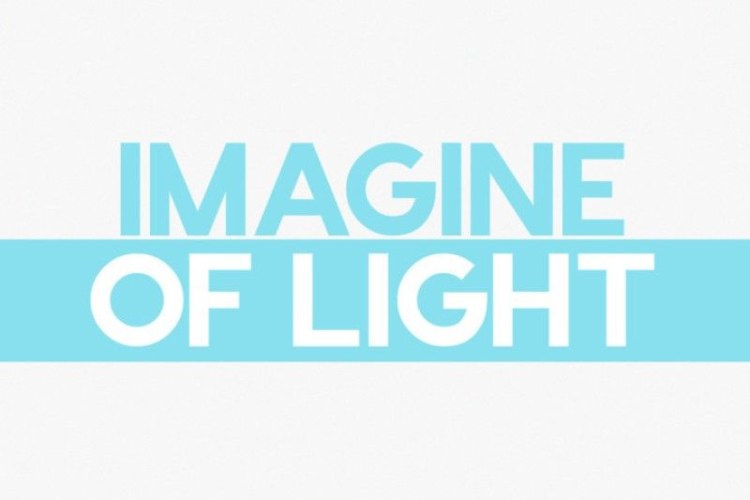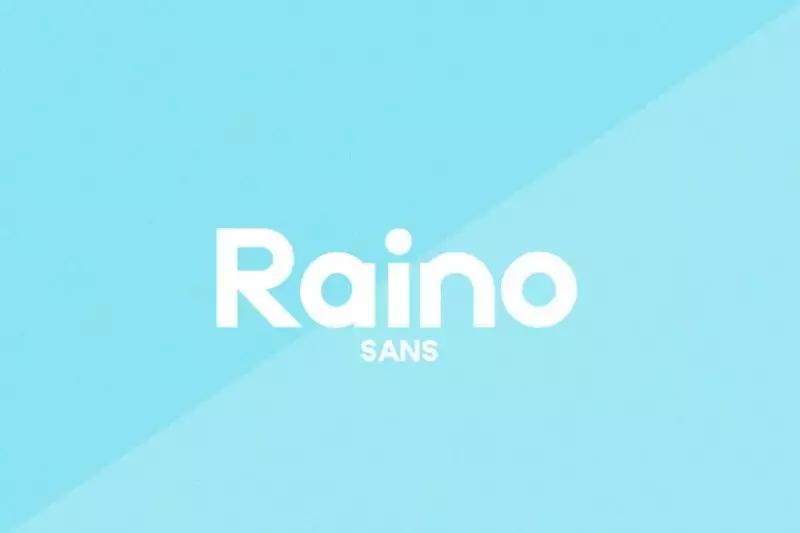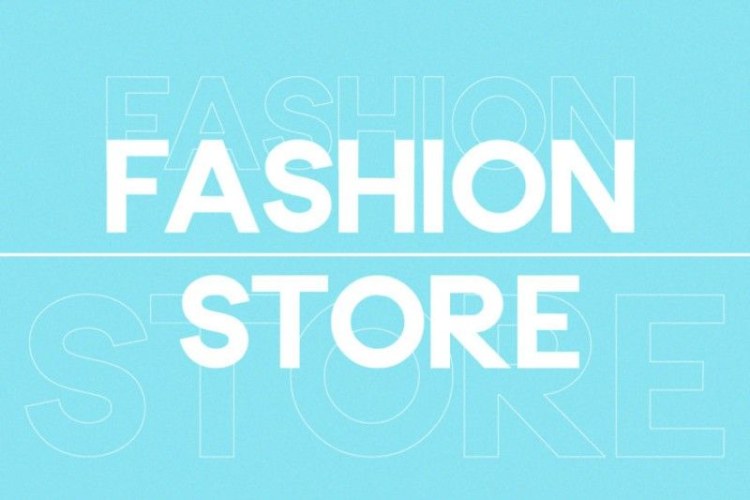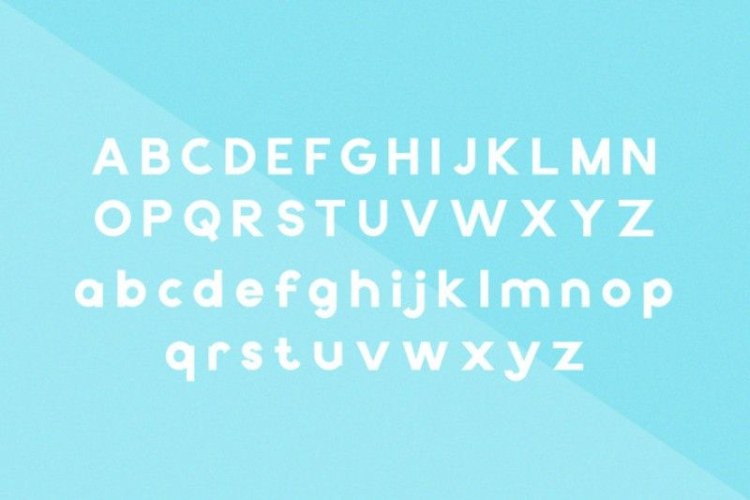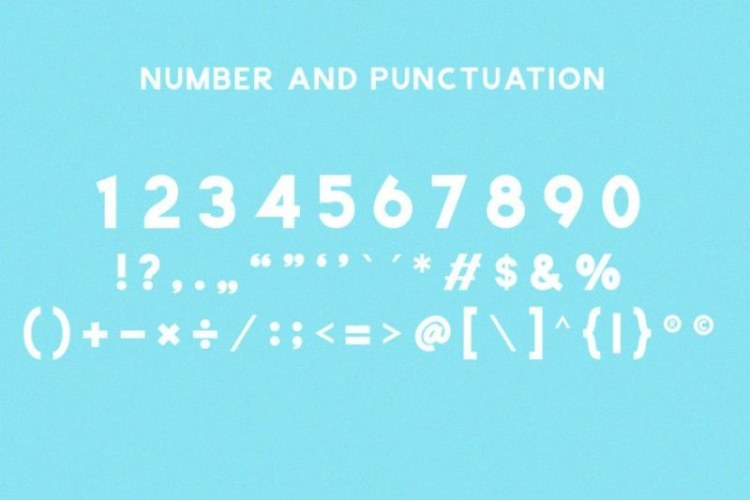
Raino Sans Font
Raino Sans is a minimal and neat sans serif font. It can easily be matched to an incredibly large set of projects, so add it to your creative ideas and notice how it makes them stand out!
Raino Sans Font is a Sans Serif Fonts font that brings a professional and versatile look to your projects. Raino Sans is a minimal and neat sans serif font.